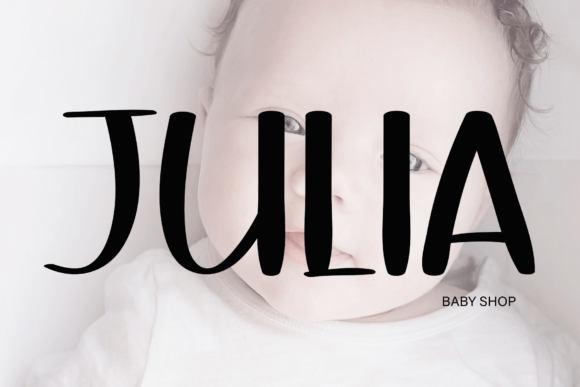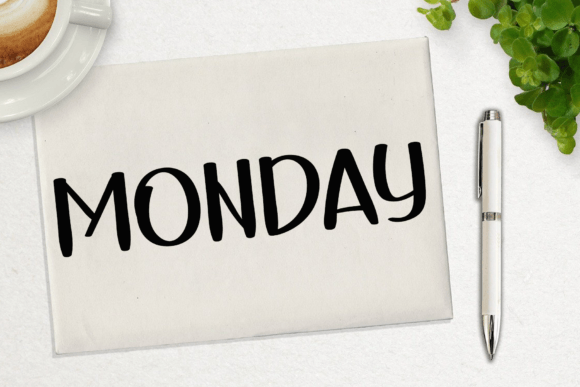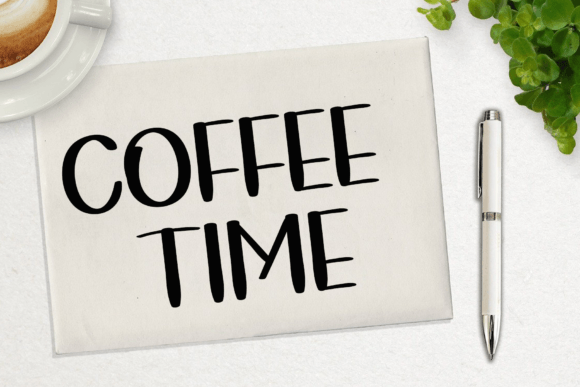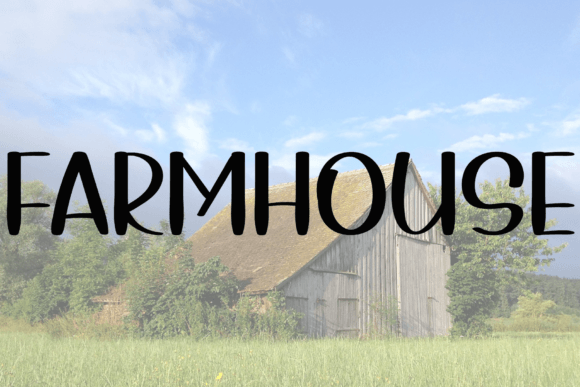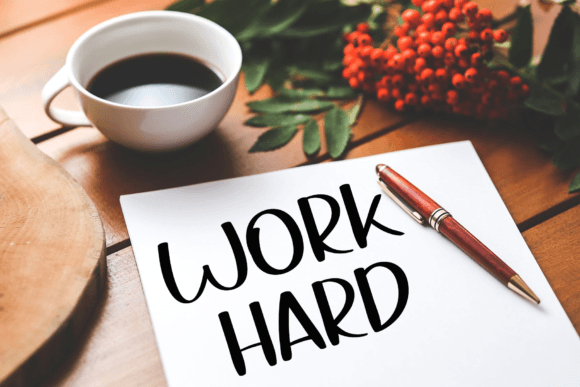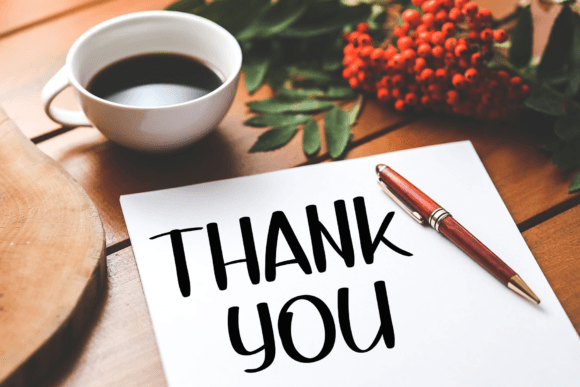
Baby Font: The Ultimate Go-To Font for Designers and Crafters
In the world of typography, fonts play a crucial role in conveying emotions and setting the tone for various design projects. One such font that has gained popularity among designers and crafters is the Baby Font. This cool and modern handwritten font has become a favorite among creative enthusiasts, and for good reason. In this article, we’ll explore the features and benefits of the Baby Font, and why it’s an excellent addition to your design arsenal.
What is Baby Font?
Baby Font is a beautiful, handwritten font that exudes a sense of warmth and playfulness. Its modern design makes it perfect for a wide range of applications, from digital design and presentations to crafts and greeting cards. The font’s unique charm lies in its effortless, cursive style that adds a touch of personality to any project.
Key Features of Baby Font
- Handwritten style: Baby Font boasts a genuine, handwritten look that adds a personal touch to your designs.
- Modern design: The font’s sleek and contemporary design ensures it stays relevant and fresh, no matter the occasion.
- Versatile: Baby Font can be used for various projects, including crafts, digital design, presentations, and greeting cards.
- Easy to read: The font’s clear and legible design makes it easy to read, even at smaller sizes.
Why Designers and Crafters Love Baby Font
So, what makes Baby Font a favorite among designers and crafters? Here are a few reasons:
- Emotional connection: The font’s handwritten style creates an emotional connection with the audience, making it perfect for projects that require a personal touch.
- Flexibility: Baby Font can be used for both digital and print projects, making it a versatile addition to your design toolkit.
- Easy to pair: The font’s neutral design makes it easy to pair with other fonts, allowing you to create unique and harmonious typography combinations.
Use Cases for Baby Font
Baby Font is an excellent choice for various design projects, including:
- Crafts: Use Baby Font to add a personal touch to your craft projects, such as scrapbooking, card making, and DIY gifts.
- Digital design: The font is perfect for digital designs, such as social media graphics, blog posts, and website headers.
- Presentations: Add a touch of personality to your presentations with Baby Font, making them more engaging and memorable.
- Greeting cards: Create beautiful and heartfelt greeting cards with Baby Font, perfect for special occasions.
Tips for Using Baby Font Effectively
To get the most out of Baby Font, here are some tips to keep in mind:
- Experiment with sizes: Play around with different font sizes to create visual interest and hierarchy in your designs.
- Pair with complementary fonts: Combine Baby Font with complementary fonts to create unique and harmonious typography combinations.
- Use for headlines and body text: Use Baby Font for both headlines and body text to create a cohesive and visually appealing design.
In conclusion, Baby Font is an excellent addition to any designer’s or crafter’s toolkit. Its unique, handwritten style and modern design make it perfect for a wide range of applications. With its versatility, emotional connection, and ease of use, Baby Font has the potential to become your go-to font for all your design needs. So, why not give it a try and see how it can elevate your designs?